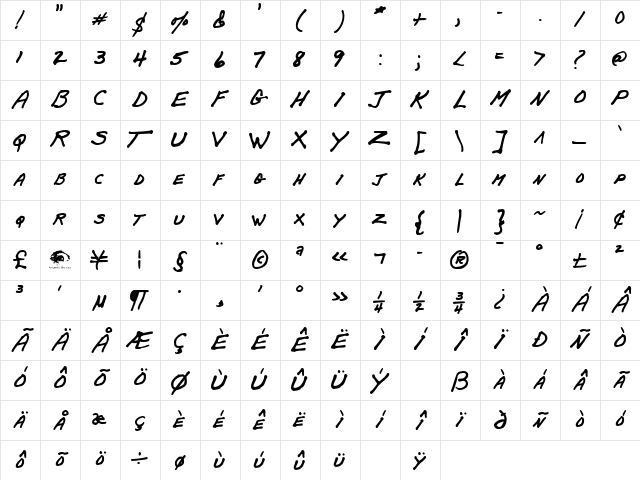
PapaMano AOE Regular Free Font
PapaMano AOE Regular
Design Context for PapaMano AOE
PapaMano AOE is a composed and adaptable typeface that performs quietly and consistently across a wide range of design contexts.